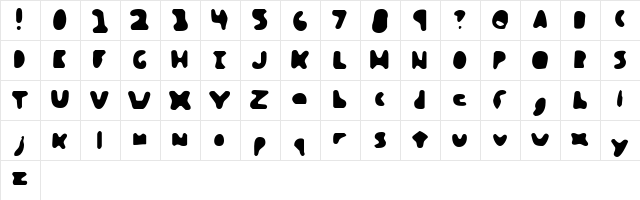
Liquid Pickle Regular Font Preview
Liquid Pickle Regular
Liquid Pickle Regular Font Details
| Foundry | Bionic Type |
| Designer | Swat Kat |
Design Context for Liquid Pickle Typeface
Liquid Pickle is a composed and adaptable typeface that performs quietly and consistently across a wide range of design contexts.